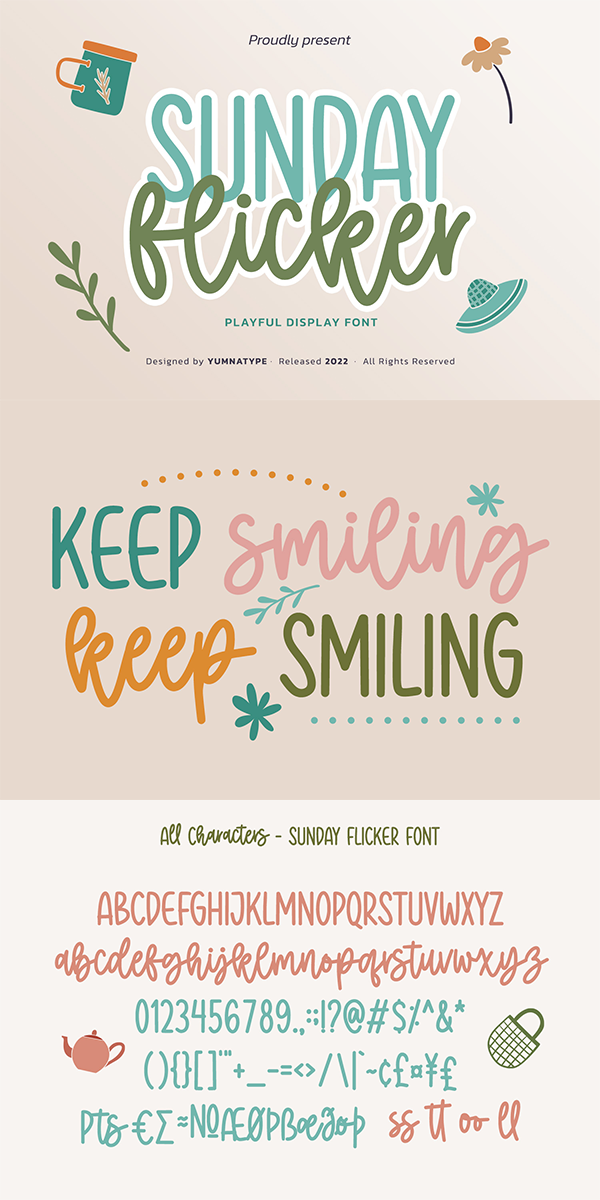
Sunday Flicker Font
About Sunday Flicker
Sunday Flicker is a display font in different capital and lowercase letters as its characteristic. Generally, it expresses friendly, fun displays in simply designed capital letters with low contrasts. Besides, the lower cases are in interconnected cursive styles to look similar to handwriting. With its intentionally improved styles to meet your design needs, this font is suitably applicable to use in various text sizes.
Sunday Flicker fits for various design projects, such as posters, banners, logos, magazine covers, quotes, headings, printed products, merchandise, social media, etc. Find out more ways to use this font by taking a look at the font preview.